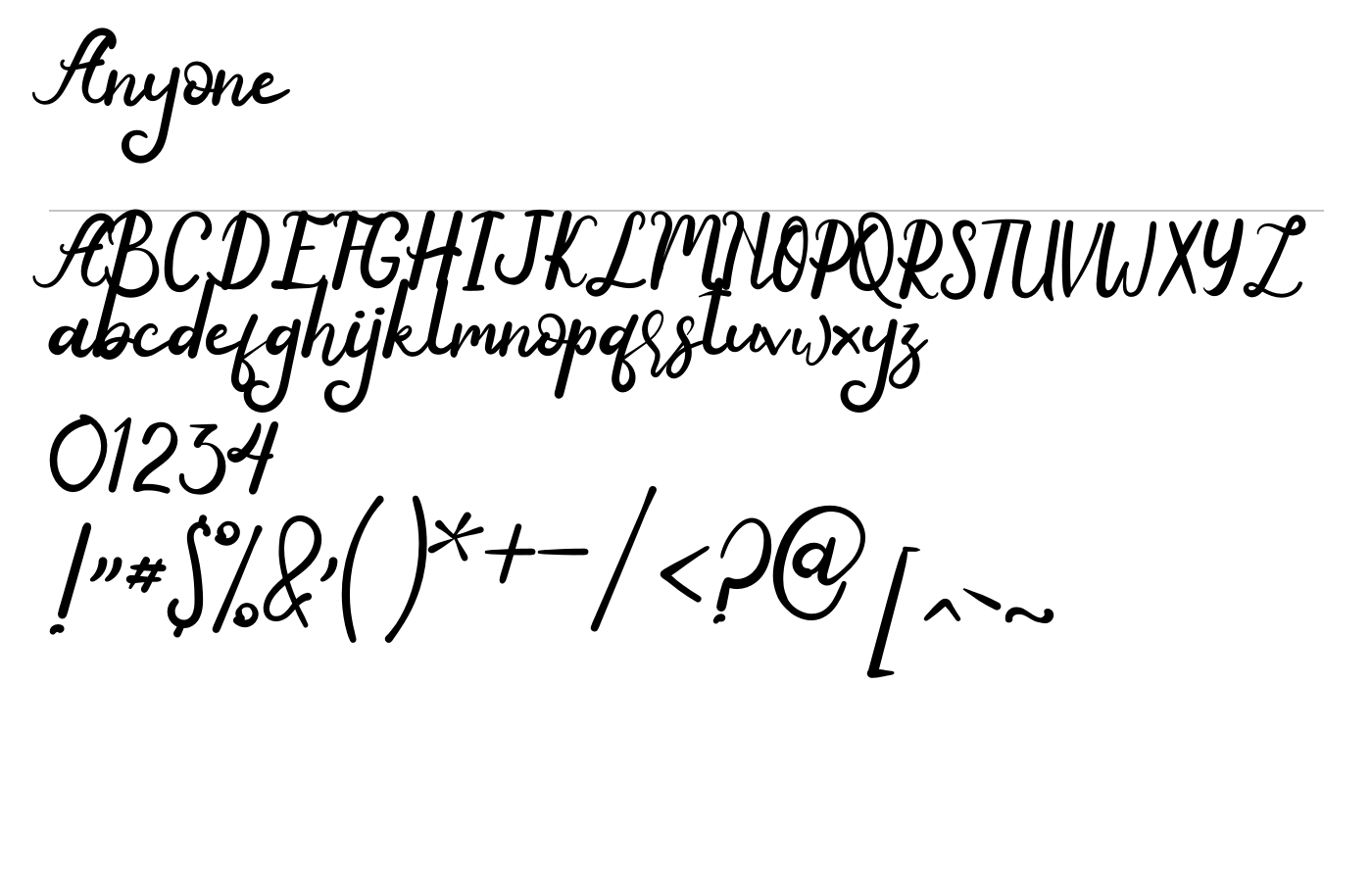
Anyone Font is a lively and elegant script typeface featuring smooth, flowing strokes and a natural handwritten feel. Its medium weight and balanced letterforms make it perfect for adding a personal and stylish touch to invitations, branding, and logos while maintaining readability and charm. This font works well where a friendly yet sophisticated impression is desired.
Anyone Font
About Anyone Font
| Font family | Anyone Font |
| Designer | Haksen Letters |